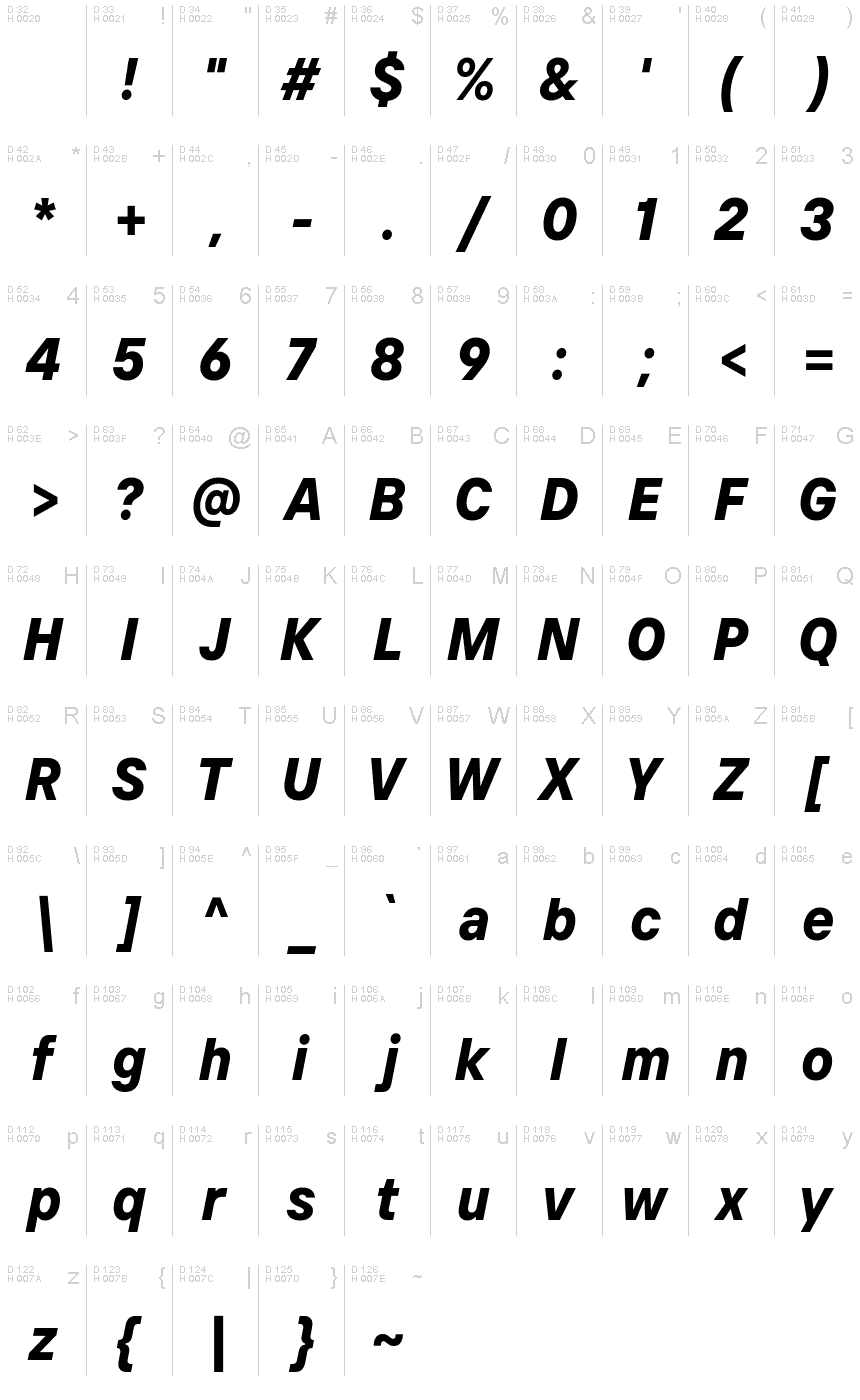
TT Interphases Pro Cnd XBd It, a bold and condensed sans serif font designed by TypeType Foundry, is perfect for projects that require a sleek and modern aesthetic.
Its strong and compact design makes it ideal for headlines, logos, and branding materials. The condensed width of the font allows for efficient use of space, making it suitable for designs with limited layout options such as posters or banners. Whether you're working on a tech startup's website or designing an edgy fashion magazine, TT Interphases Pro Cnd XBd It will make your typography stand out with its bold and contemporary style.